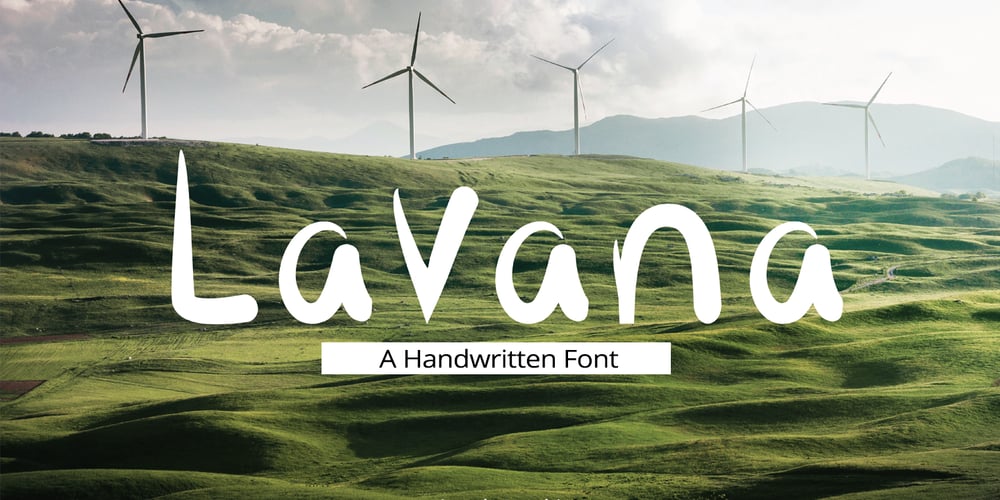
Lavana Font Family was designed by Andrea Zudip Aggasi and published by Nirmalagraphics. Lavana contains 1 styles and family package options. Lavana is made with a style brush. If you like natural fonts in a bold and handwriting style, you must have it. You can use Lavana for any needs, can be for logos, flyers, magazines, clothes, business card brochures and others. Lavana is also equipped with multi-lingual support.